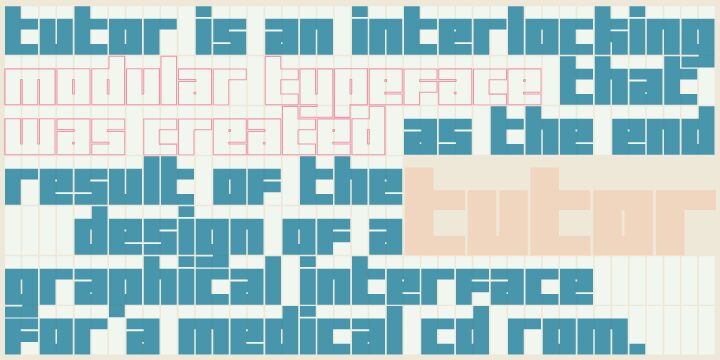
Tutor Outline by Francesco Canovaro of studio Kmzero is a free outlined techno display font built from broad, squared letterforms. Its rigid outer contours and deep rectangular cut-ins give the lettering the look of modular panels. Narrow interior gaps add a precise, machine-cut detail to the otherwise solid silhouettes.
A game title is its most convincing role, especially for arcade, construction, or industrial themes. The same block-built shapes also suit event posters, music merchandise, and branding for hardware or electronic products. In illustrated graphics, the letters can echo circuit paths, stacked machinery, or architectural plans, becoming part of the technical scenery rather than simple text.
Tutor font was created for a medical interactive flash project.